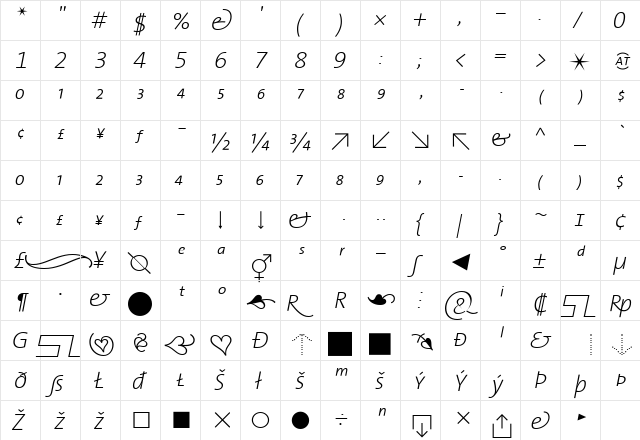
The Sans Extra Light- Italic Font Preview
The Sans Extra Light- Italic
The Sans Extra Light- Italic Font Details
Design Context for The Sans Extra Light- Typeface
The Sans Extra Light- offers clean, dependable letterforms without strong stylistic allegiance, making it a practical choice for designers who need flexibility. Its italic angle brings a sense of urgency and motion to the letterforms. Its slender proportions lend an understated elegance to any composition.
Pro Tip: Use The Sans Extra Light- for emphasis, pull quotes, and subheadings where its slanted energy can add rhythm to the layout.